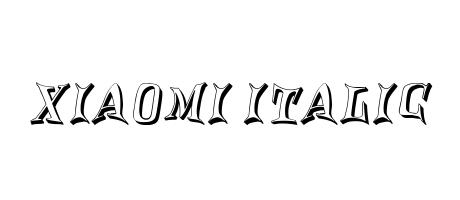
Xiaomi
Xiaomi Italic is a bold, slightly condensed italic typeface. Its characters possess a dynamic, almost hand-drawn quality, with sharp serifs and pronounced strokes. The weight is medium, creating a sense of energy and a vintage feel, hinting at a slightly mischievous personality. It's a font that demands attention without being overly aggressive.